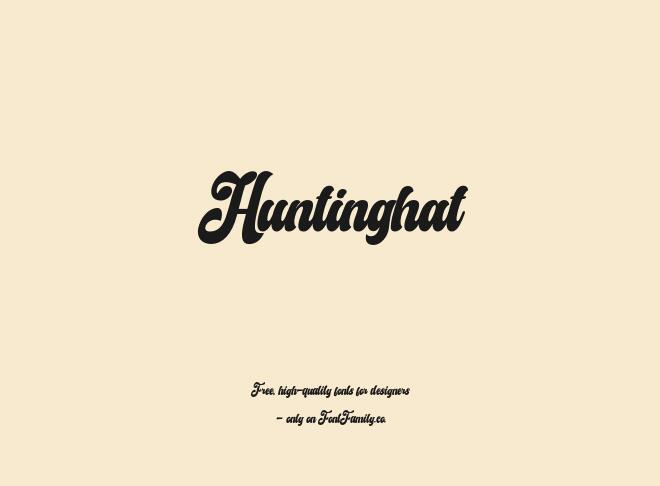
Huntinghat Font
Huntinghat Font is a captivating and unique handwritten script font by Creative Type Studios. Released in 2019, it has a rustic and vintage charm that makes it perfect for designs requiring a timeless yet informal feel. Huntinghat Font offers a distinctive style that sets it apart from traditional script fonts. Its handcrafted characteristics make it a superb choice for logos, branding, wedding invitations, or any design that needs a personalized touch. The font's versatility also extends to display use, effortlessly adding an artistic flair to headlines or quotes. If you're looking for a font that combines the warmth of hand-drawn lettering with the sophistication of a classic script, Huntinghat Font is a top-notch choice.